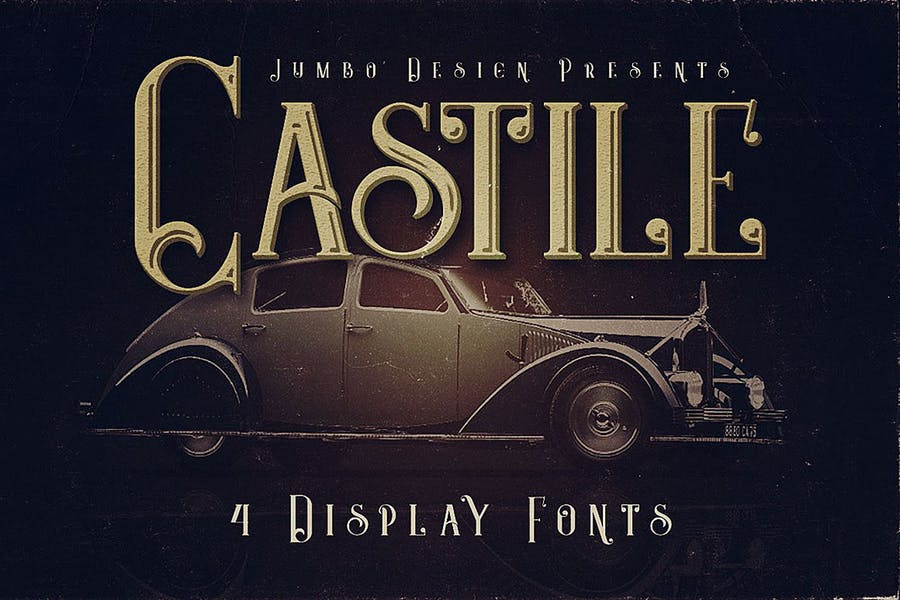
Castile - Display Font
Castile Display Font is perfect for Spanish heritage branding, medieval castle tourism, historical museum displays, traditional Spanish restaurant signage, cultural festival graphics, Iberian wine marketing, heritage architecture communications, and authentic Spanish cultural promotions.
What makes Castile Display Font exciting is its regal heritage that embodies the noble grandeur and historical majesty of Spanish castles with medieval authenticity and Iberian cultural pride. The font features majestic letterforms with fortress-like proportions and royal character that evoke stone battlements, royal courts, and the enduring legacy of Spanish medieval architecture and noble heritage. Its distinctive castle styling and royal appeal communicate nobility, heritage, and cultural grandeur, making every message feel crowned with royal authority and touched by the magnificent legacy of Spanish medieval nobility and fortress tradition.
The Castile Display Font family includes regular weight with uppercase and lowercase letters, numerals, punctuation marks, and special characters. Premium versions often feature royal alternates and medieval elements that enhance the majestic, heritage aesthetic perfect for cultural and tourism applications.
This magnificent heritage typeface brings instant nobility and cultural credibility to any Spanish medieval project. Castile Display Font Free Download delivers exceptional results for cultural institutions and heritage tourism organizations seeking to communicate Spanish nobility, medieval grandeur, and royal heritage to history enthusiasts and cultural tourists.
The royal character of Castile Display Font makes it particularly valuable for Spanish cultural centers, medieval tourism sites, and heritage preservation organizations. Its excellent readability ensures historical information and cultural messaging remain clear while maintaining the distinctive royal aesthetic that appeals to visitors seeking authentic Spanish medieval experiences and noble heritage.
Cultural heritage marketers appreciate how Castile Display Font effortlessly conveys Spanish authenticity and medieval nobility. The font's majestic proportions and royal details create prestigious educational materials that establish connections with audiences who value Spanish history, medieval culture, and the magnificent heritage of Iberian castle architecture and royal tradition.
The versatile nobility of this typeface extends to Spanish wine estates, heritage hotels, and cultural education where royal authenticity enhances cultural credibility and heritage appeal. Castile Display Font Free Download provides creative professionals with an essential tool for developing memorable, heritage-driven designs that resonate with audiences who embrace Spanish culture, medieval history, and the majestic grandeur of Castilian nobility in their cultural and tourism experiences.